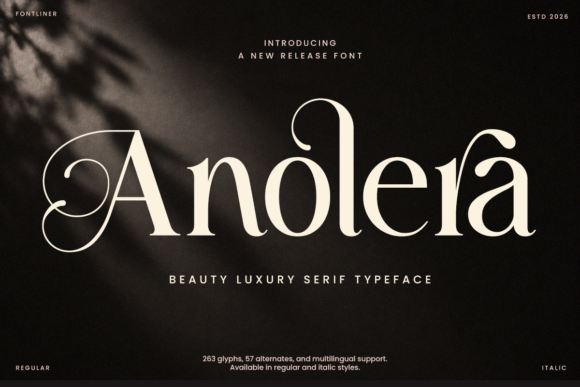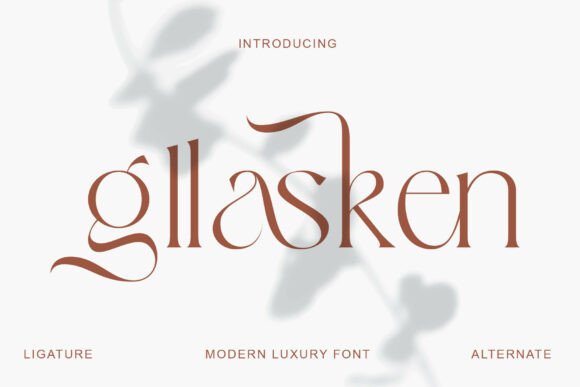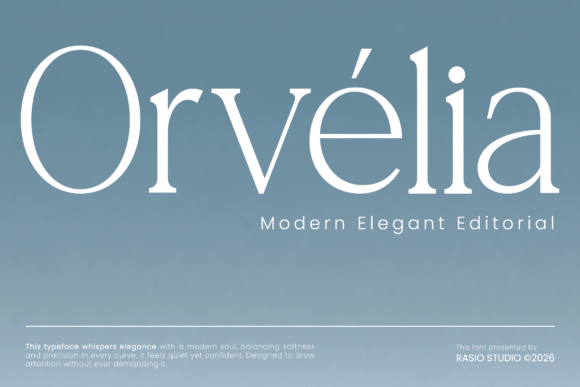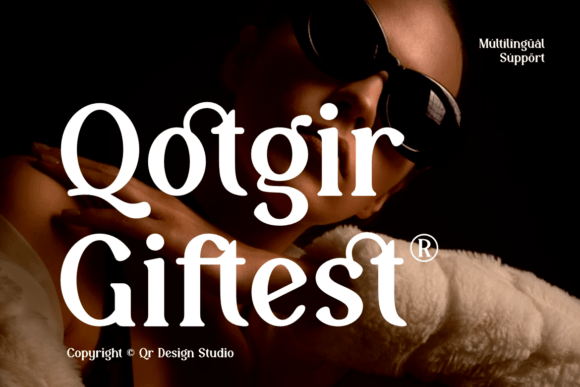
Fonts for jewelry and boutique brands shown on a fine retail logo
14 Stunning Fonts for Jewelry and Boutique Brands in 2026
The best fonts for jewelry and boutique brands have a delicate task: look expensive without trying too hard. A jewellery wordmark sits on tiny tags, polished mirrors and slim necklace cards, so the type needs fine detail that still survives small. That is what fonts for jewelry and boutique brands are really chosen for.
This is a buyer’s guide, so instead of a flat list these 14 fonts are grouped under the criteria that matter in fine retail, with a short decision checklist at the end.
How to choose fonts for jewelry and boutique brands
Before the picks, here is what separates a face that flatters fine jewellery from one that cheapens it. Judge the fonts below against these four points.
• Contrast: a clear thick-to-thin stroke reads as craft and money.
• Small-size detail: the face must hold its shape on a ring tag, not just a banner.
• Restraint: luxury whispers, so avoid loud or trendy shapes that will date.
• Range: one face for the name, a quiet partner for prices and care cards.
High-contrast serif fonts for a luxury feel
Stroke contrast is the quickest signal of quality. These high-contrast fonts for jewelry and boutique brands give a name instant polish at size.
Anolera
Anolera luxury serif fonts for jewelry and boutique brands
Anolera is a refined luxury serif with elegance and timeless beauty. Among high-contrast fonts for jewelry and boutique brands it reads as craftsmanship the moment a customer sees the name. Use it large on the storefront, the gift box and the lookbook where the contrast can show, and keep small print to a plain companion. For a jewellery house that wants its name to feel like a hallmark, Anolera is a graceful serif worth a close look.
Orvelia
Orvelia editorial serif fonts for boutique brands
Orvelia is an editorial serif that captures quiet confidence with high contrast. As fonts for jewelry and boutique brands go it brings a magazine-grade polish to a wordmark, flattering a fashion-led jeweller or a fine boutique. Use it for the name and feature headlines, with a minimal sans for prices. The contrast wants a generous size. For a boutique that wants an editorial, high-contrast serif logo, Orvelia is a refined font worth trying.
Churasi
Churasi luxury serif display fonts for jewelry brands
Churasi is an elegant luxury serif display face built for fashion and timeless beauty. Among high-contrast fonts for jewelry and boutique brands it has real shelf presence, carrying a brand name on a box or a sign with confidence. Use it large for the name and a clean sans for the details. The sculpted contrast reads expensive. For a jewellery brand that wants a statement luxury wordmark, Churasi is a striking serif worth a place on the shortlist.
Qotgir Giftest
Qotgir Giftest high fashion display serif fonts for jewelry
Qotgir Giftest is a high-fashion display serif with a runway presence. Among fonts for jewelry and boutique brands it is the most dramatic, ideal for a hero piece or a limited collection where the brand wants pure fashion energy. The extreme contrast needs size and clean print, so keep it to the name. Pair it with the simplest sans. For statement jewellery branding that wants high-fashion drama, Qotgir Giftest is a bold serif worth a careful look.
Gllasken
Gllasken modern luxury serif fonts for jewelry boutiques
Gllasken is a modern luxury serif designed for editorial grace. Among high-contrast fonts for jewelry and boutique brands it is a touch more restrained, giving a wordmark polish without theatre. The refined contrast reads premium while staying legible on a card. Use it for the name and a clean sans for prices. For a contemporary jeweller that wants a high-end serif with calm confidence, Gllasken is a graceful font worth a closer look.
Refined and condensed serifs for the wordmark
For the core logo, you want a serif that is elegant but calm. These refined faces carry the brand name and still behave on small tags.
Delmora
Delmora refined display serif fonts for jewelry brands
Delmora is a graceful display serif with refined contrast and decorative curves. As refined fonts for jewelry and boutique brands go it sits between a wordmark serif and a decorative face, lending a romantic, floral-leaning elegance. Use it for the name and feature headers where the curves can show, with a plain sans for detail. The decorative forms want a generous size. For a boutique that wants a romantic, refined serif logo, Delmora is a lovely font worth trying.
Mafesta
Mafesta condensed serif fonts for jewelry and boutique brands
Mafesta is an elegant condensed serif with timeless sophistication. Its narrow build is genuinely useful for jewellery, where a long brand name has to fit a slim tag or vertical sign. The tall letters look luxurious set tight, and the contrast keeps the upmarket feel. Use it where space is short and elegance still matters. For a boutique with a longer name that needs to look premium in a small footprint, Mafesta is a smart condensed serif worth a look.